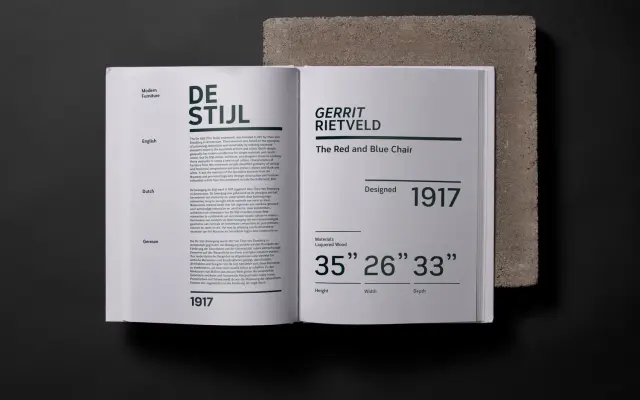
Corbert Condensed
A condensed geometric sans derived from the Corbert family, running approximately 15% narrower than its parent to suit tight text layouts and narrow columns.
Nine weights with matching italics give the family a broad range for editorial and publication work where space is constrained. Each style ships with 540 characters, five numeral variants, alternative lowercase forms for a, e and g, and manually edited kerning. The condensed cut pairs with the original Corbert for a unified typographic system across varied layout conditions.
The typeface is explicitly described as geometric sans-serif, sharing the precision and clarity characteristics of the parent Corbert family, drawn with clean geometric forms across nine weights.